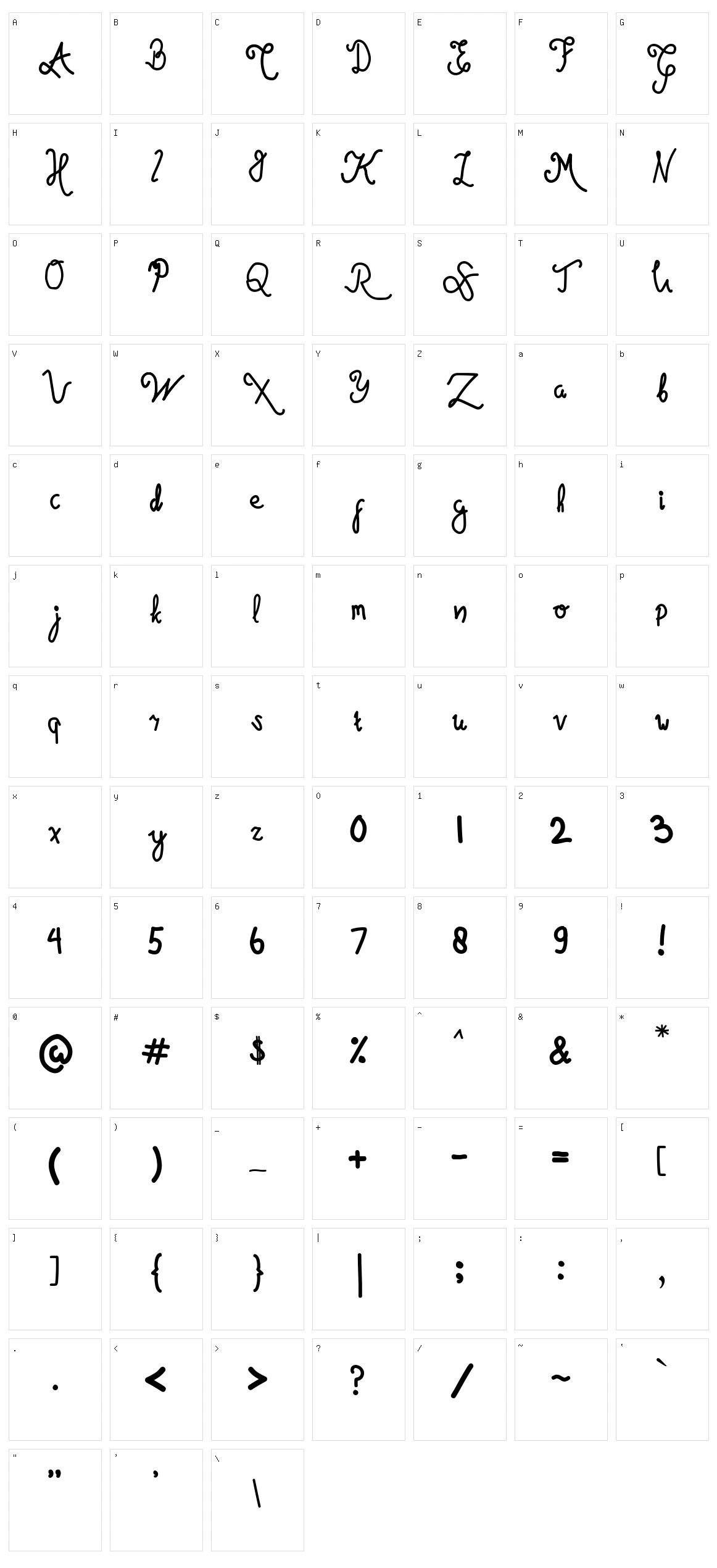
The free font Magicula is carefully designed by Treelight.id, showcasing a thoughtful balance of creativity and usability and falls under the Script font style. When you download the ZIP file, it contains only 47.83 KB of font files, making it lightweight and quick to download. Please review the license details below to understand permitted usage and distribution rights. If license information is not available, we recommend using this font for personal projects only or contacting the author directly for commercial usage permissions.